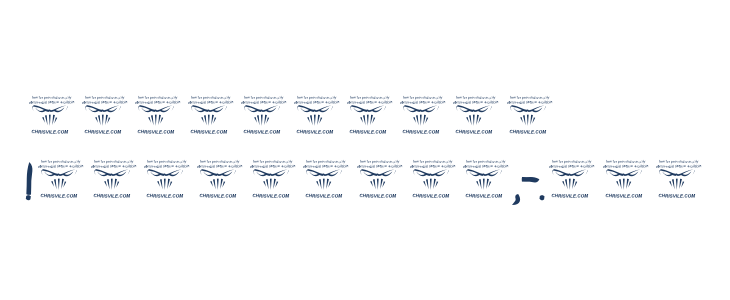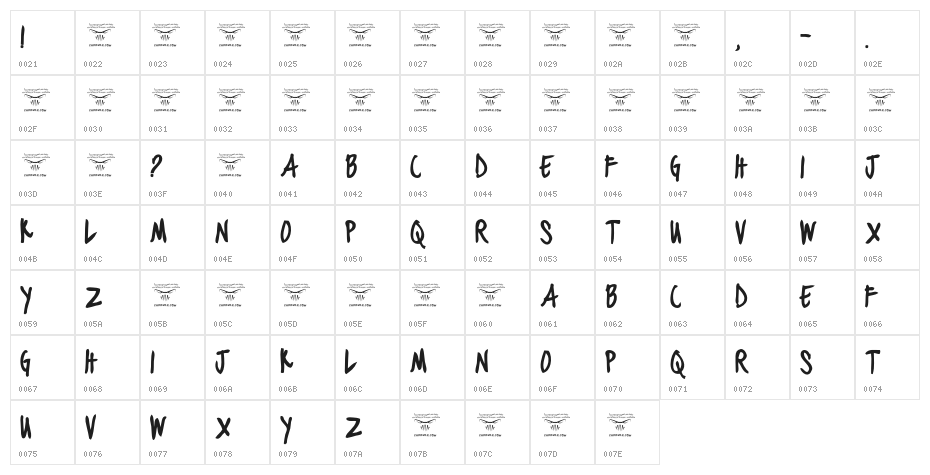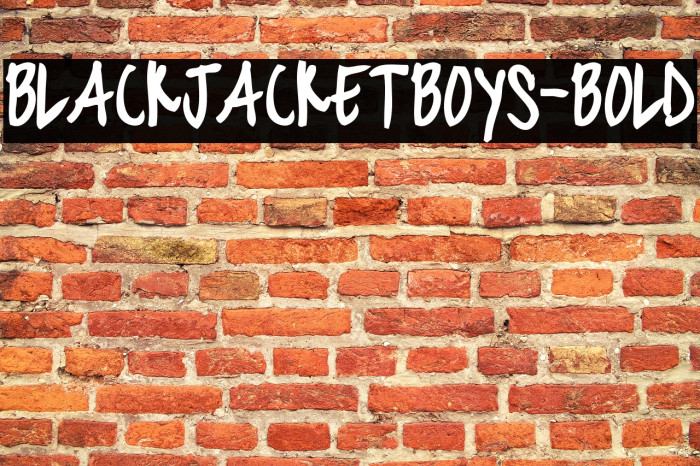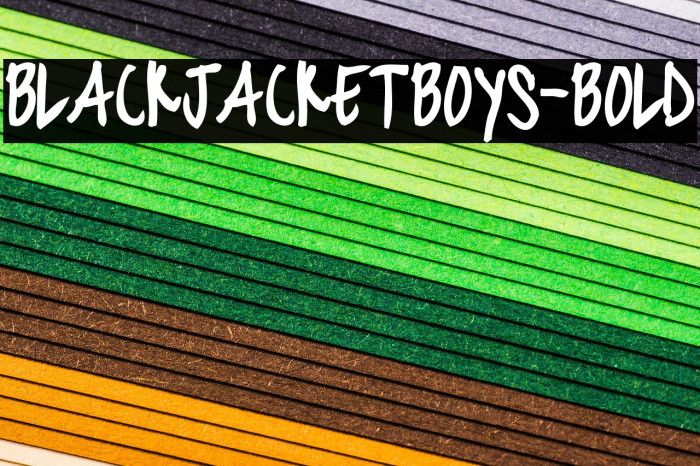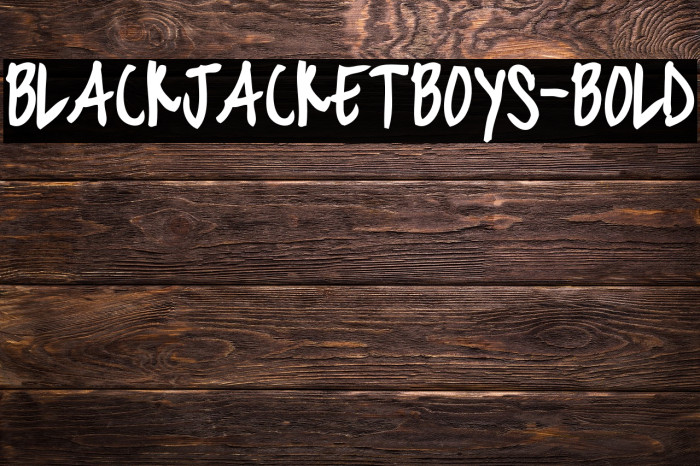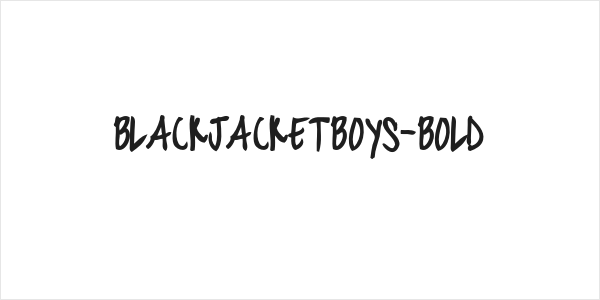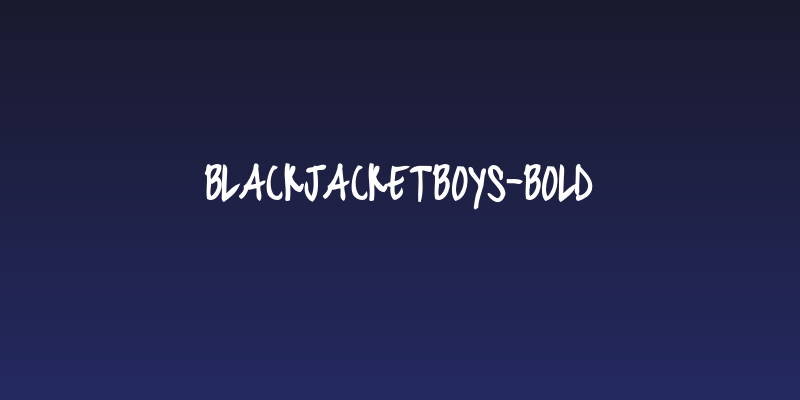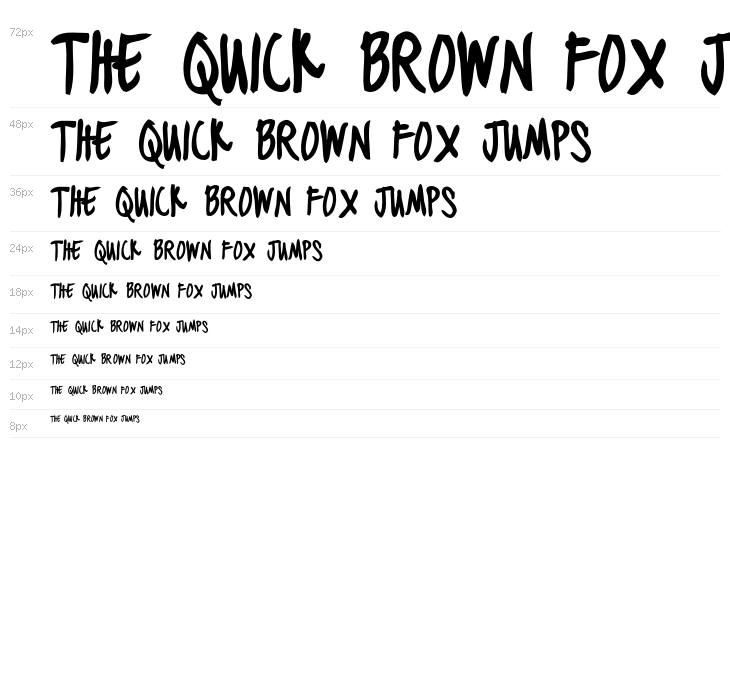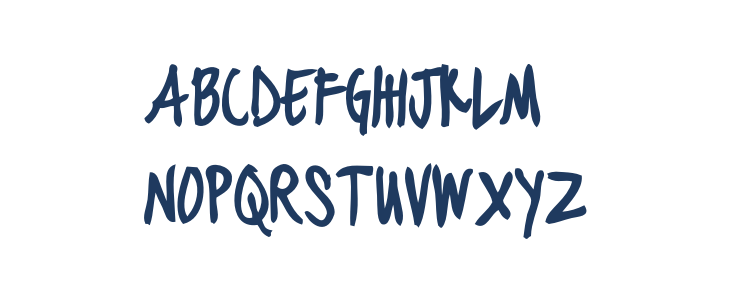
blackjacketboys-Bold Font
blackjacketboys-Bold Description
This font features a bold and energetic style with a handwritten appearance, characterized by its dynamic and slightly irregular strokes. The uppercase letters are prominent and expressive, giving a sense of movement and flair. The lowercase letters maintain a consistent style, complementing the uppercase with their own unique charm. The numbers and special characters are crafted to match the overall aesthetic, making them suitable for a variety of creative applications. This font exudes a playful yet assertive personality, perfect for making a statement.